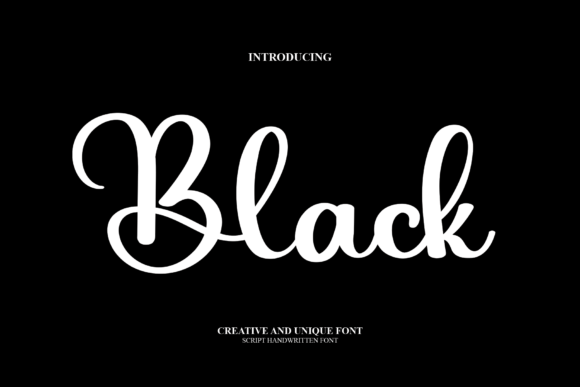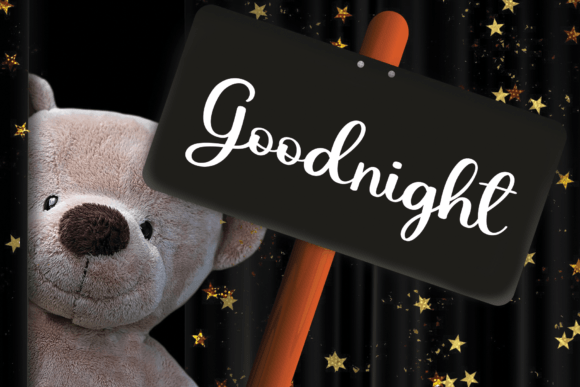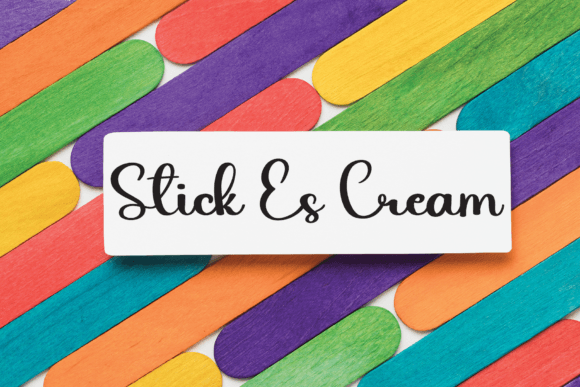
Black Font
About Black Font
Introducing a font that embodies sweetness, romance, and beauty – a script font adorned with enchanting curves in every letter. This typeface is more than just a collection of characters; it’s a visual journey, a stunning addition to elevate your designs to new heights. With its captivating aesthetic, this font becomes a go-to choice for a myriad of creative projects, ranging from the most intimate to the most professional.
The beauty of this script font lies in its attention to detail, with each letter carefully crafted to showcase exquisite curves. These curves add a touch of sophistication and charm, making it an ideal companion for projects that seek to convey sentiments of love, gratitude, or elegance. Wedding invitations come alive with the font’s romantic allure, while thank you cards are transformed into expressions of genuine warmth.
Quotes take on a new dimension as the script font imparts a unique personality to each phrase, creating a visual harmony that resonates with readers. Greeting cards become works of art, the curves in the font enhancing the emotional impact of heartfelt messages. Logos adopt a signature style, embodying the essence of the brand with an elegant and handwritten touch.
Business cards are no longer just contact details; they become memorable impressions, leaving a lasting mark with the font’s distinctive and refined appearance. Every design that demands a handwritten touch finds a perfect companion in this script font. Its versatility extends beyond the expected, breathing life into diverse creative endeavors.
Imagine the joy of exploring the font’s curves as you craft wedding stationery or the satisfaction of seeing your business logo transformed into a work of art. Picture the impact of this script font on your designs—it’s not merely a typeface; it’s an integral part of your creative expression, adding depth, emotion, and a touch of the extraordinary.
Incorporate this script font into your design toolkit and witness the transformation of your projects. With every stroke and curve, it becomes a testament to the power of well-crafted typography. From the elegance of business branding to the sentimental touch in personal projects, this font invites you to embrace a world where beauty and expression intertwine seamlessly.